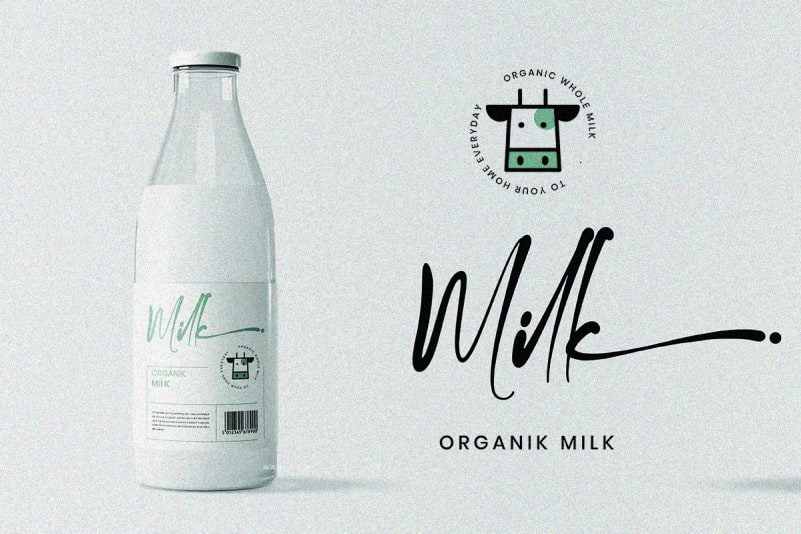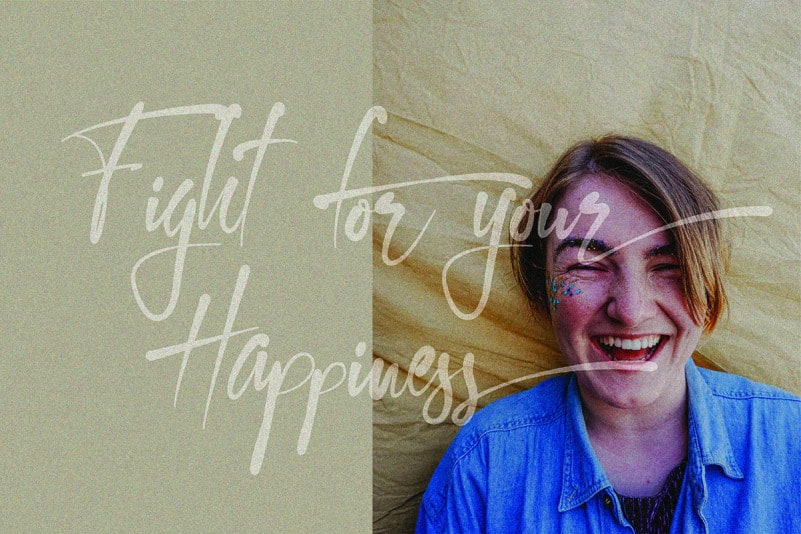
Kallem Script Font
Kallem Script Font is a stylish modern calligraphy typeface with magical pressure. i hope this font perfect for creating signature logos and watermarks for photography studio or wedding invitation, best for initial or branding logo signature.